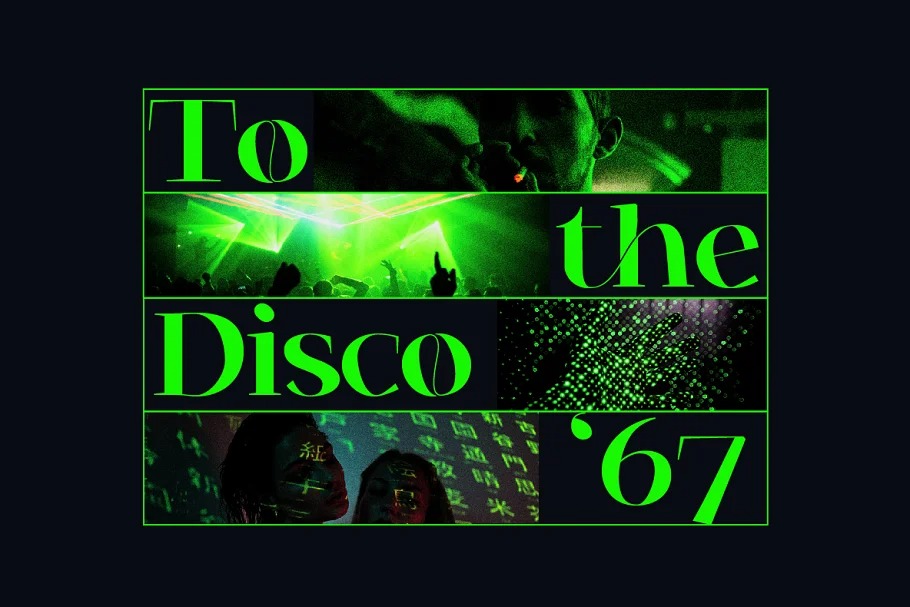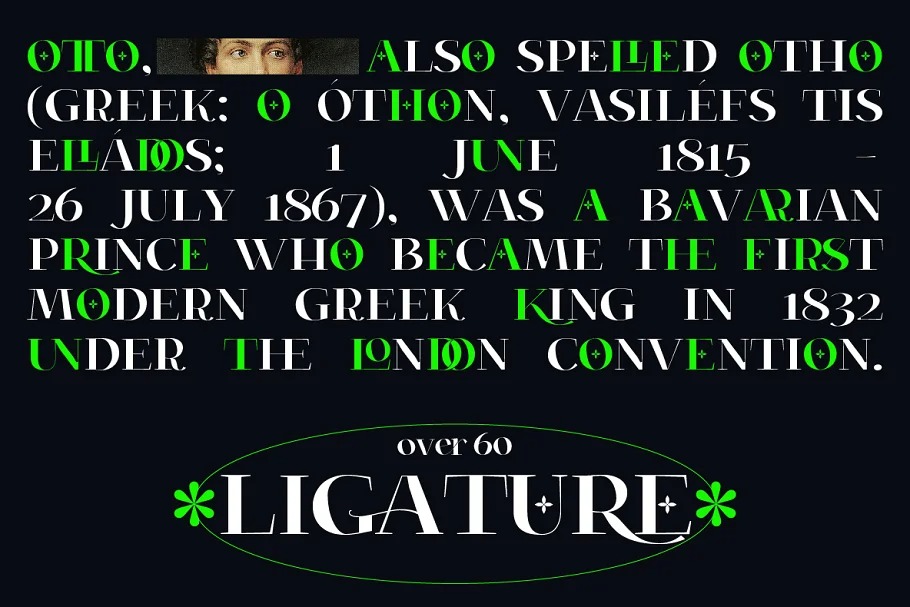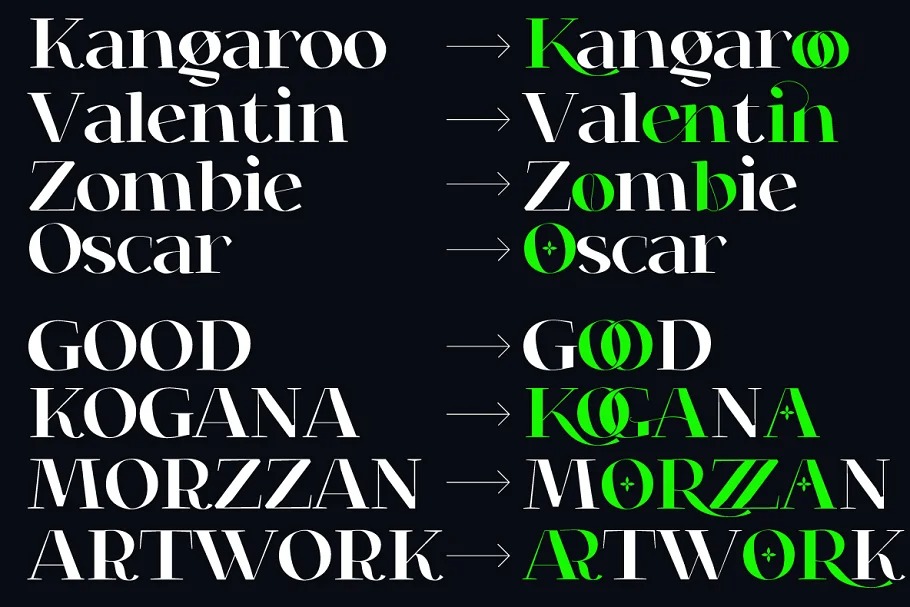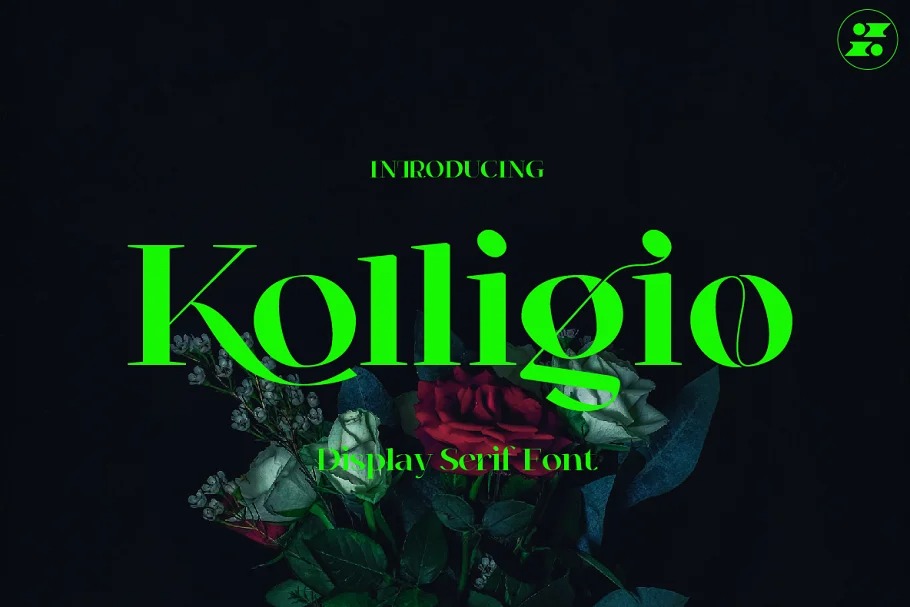
Kolligio Serif Font
It’s a unique and very elegant typeface for brand and logo designs. With ligatures, special alternative glyphs and old style. The high contrast between thick and thin strokes gives Kolligio so stylish look and is ideal for headlines, headers, logos, labels, packaging, postcards, presentations, magazines, invitations, etc
Kolligio has more than 60 upper and lower case ligatures, and for alternative letters (K, L, b, d, o, p and q) simply add plus after the letter.